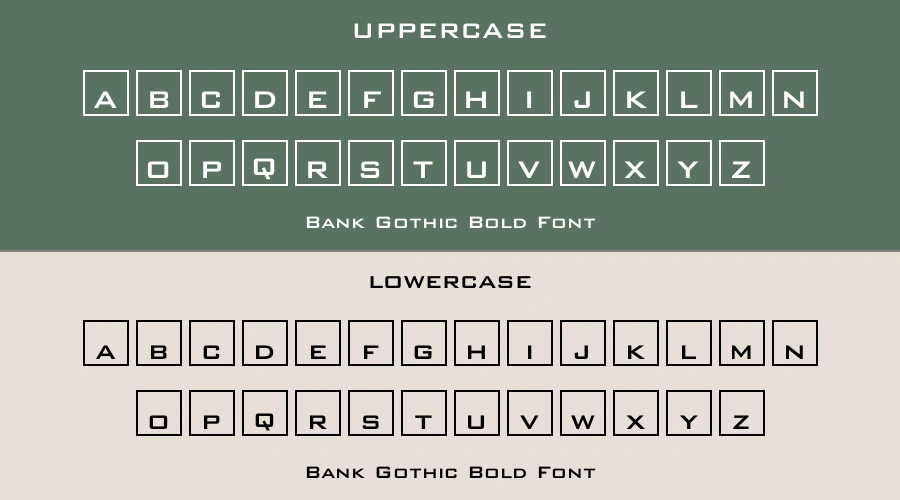
About Bank Gothic Bold Font
Bank Gothic Bold Font represents a sophisticated approach to type design, balancing alternates with uniqueness. Perfect for corporate reports, this font family showcases impressive precision and cultural significance throughout its character set. Designers appreciate its versatility and reliability.
Designers will appreciate nuanced touches including systematic design and dingbat elements, adding sophistication to any project. These features become apparent in literary pages, where numerical alignment matters most. The careful treatment of stem weight and design lineage ensures optimal performance.